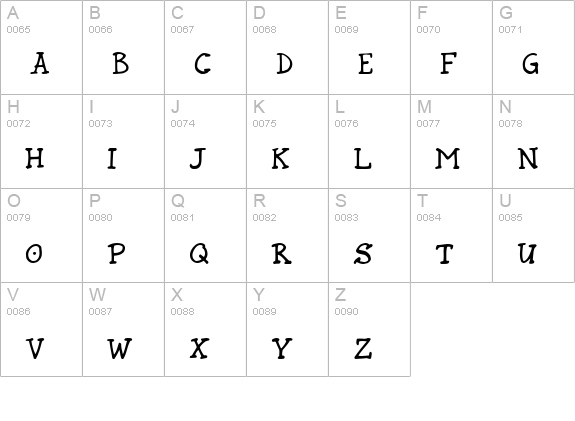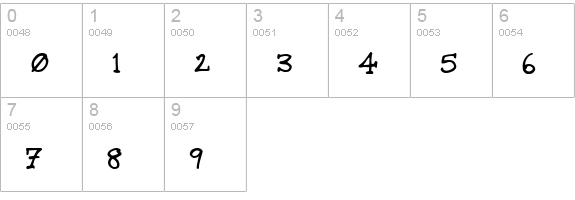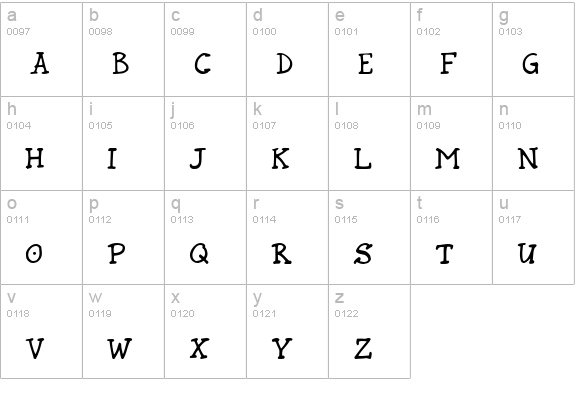
Rund Marker Font Details
Rund Marker font is a unique and stylish typeface that adds a touch of creativity to any project. With its bold and hand-drawn appearance, this font is perfect for making a statement or adding a playful element to your designs. The irregular edges and rounded shapes give Rund Marker a casual and friendly feel, making it ideal for a variety of applications such as logos, posters, invitations, and more. What's even better is that Rund Marker font is completely free to download at FontsMarket.com. This means you can easily access this eye-catching font without any cost, making it a great choice for both personal and commercial projects. Don't miss out on the opportunity to enhance your designs with the charm and character of Rund Marker font, available for free download now!